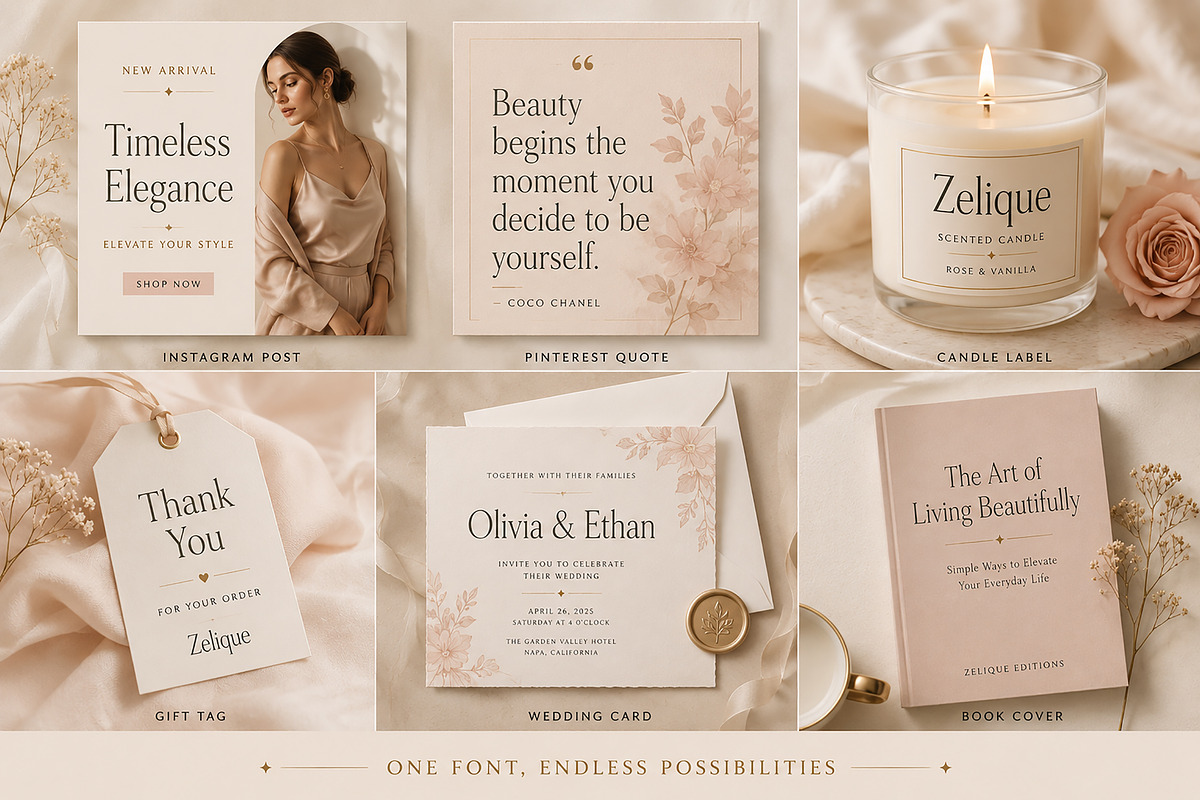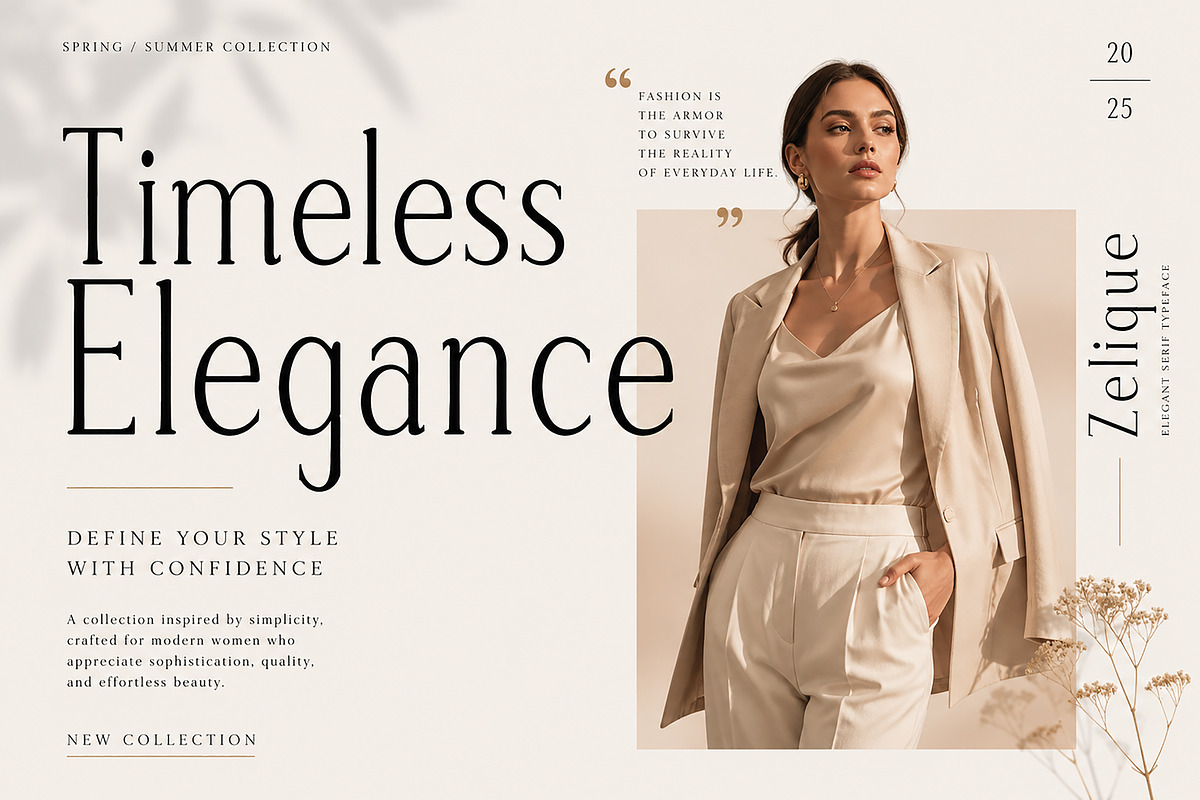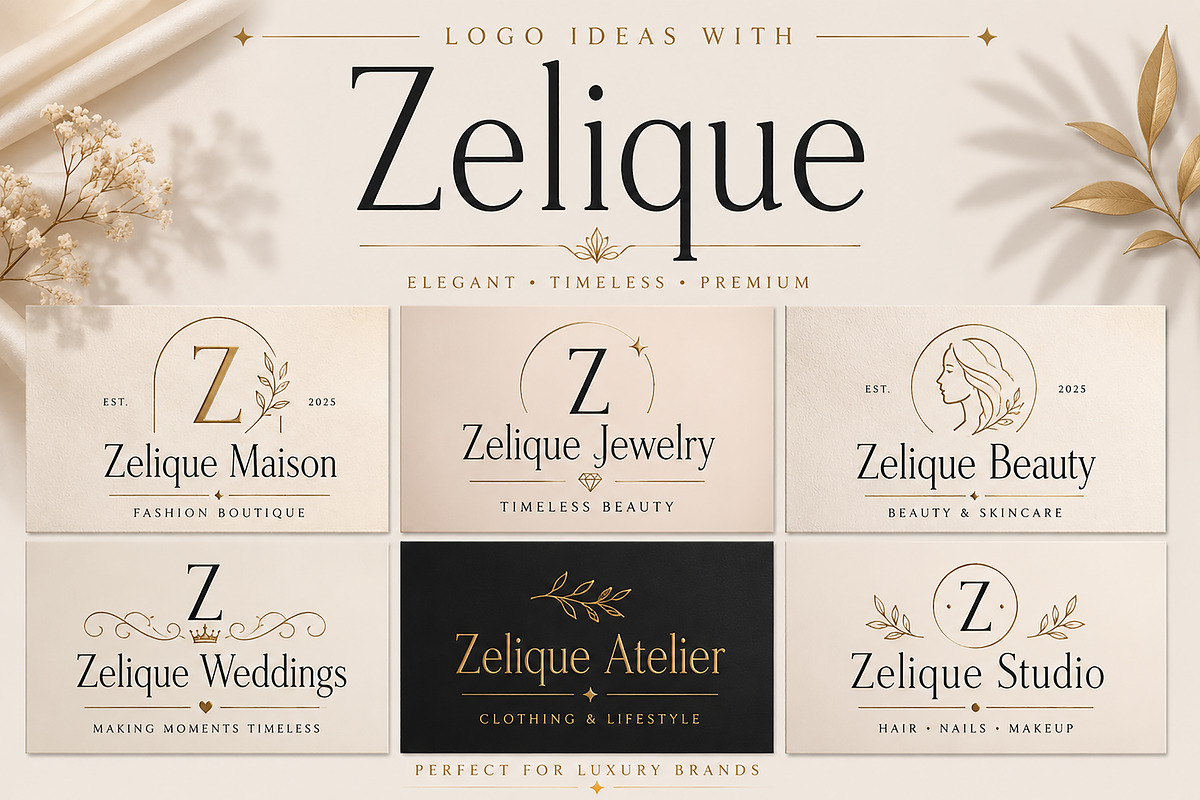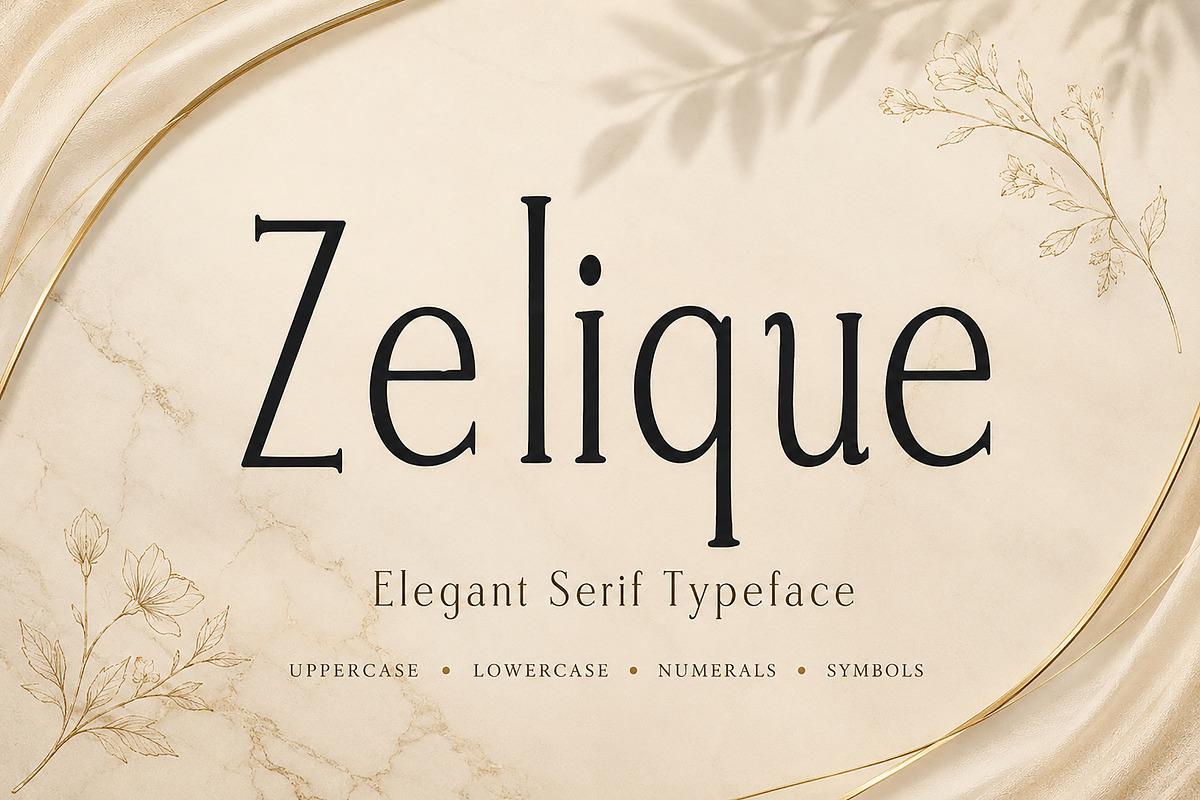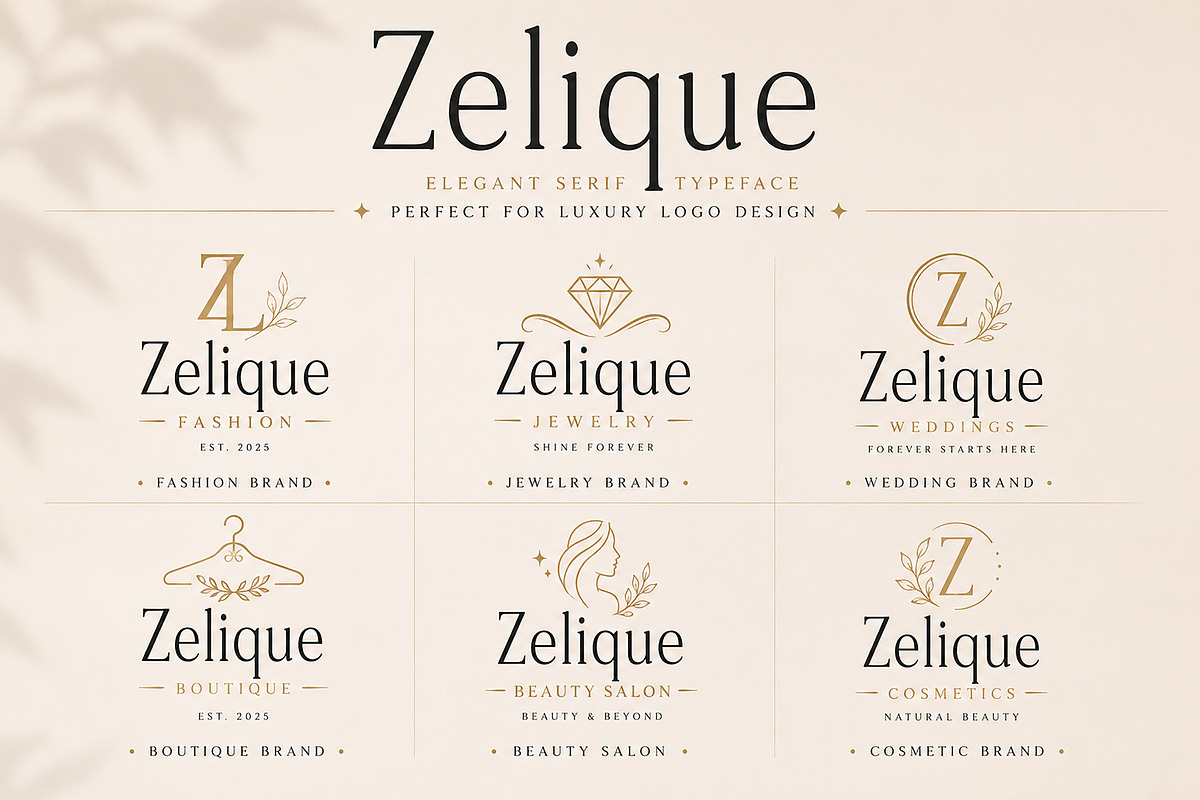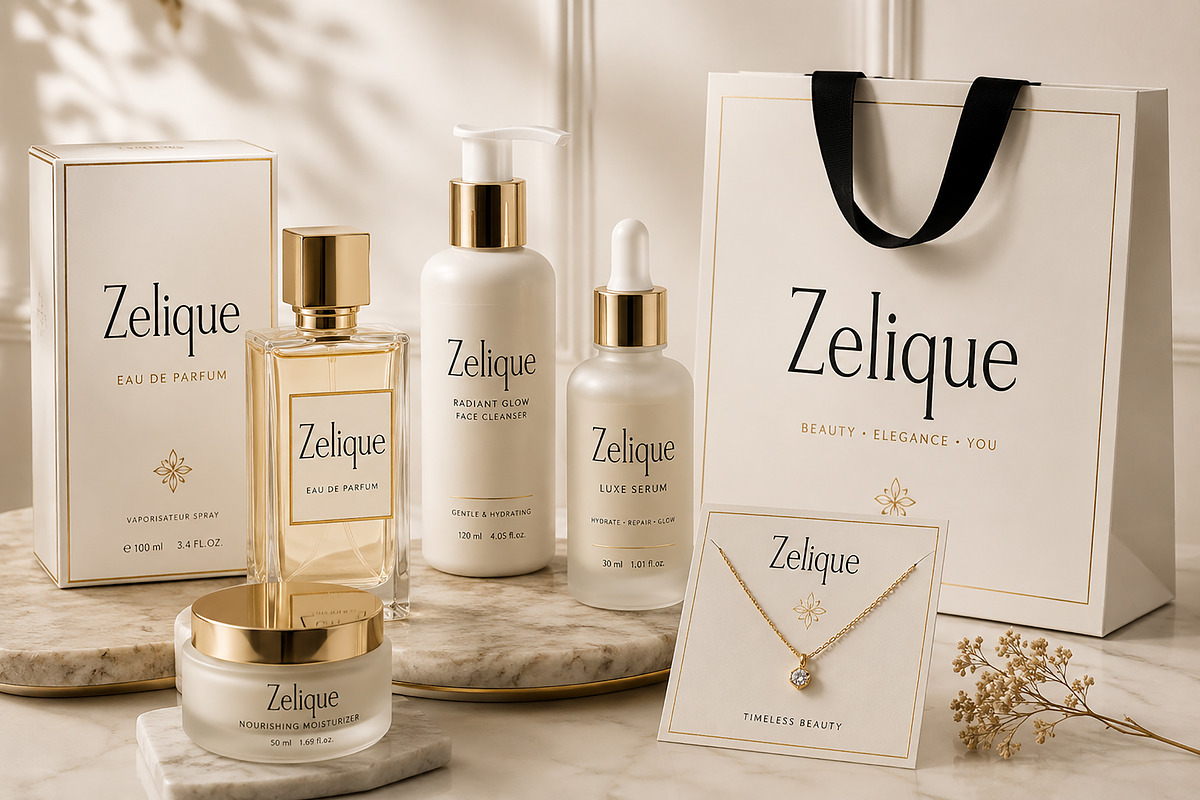
Zelique
Zelique – Elegant Serif Typeface
Zelique is a refined and sophisticated serif font crafted for luxury branding, fashion editorials, elegant logos, and timeless design projects. With its slim letterforms, graceful curves, and high-contrast strokes, Zelique brings a premium and stylish touch to every creation.
Perfect for designers who want to create stunning branding identities, wedding stationery, beauty packaging, boutique logos, magazine layouts, social media quotes, book covers, and upscale product packaging.
Its modern elegance and classic serif structure make it highly versatile—whether you're designing for fashion, beauty, lifestyle, or luxury businesses.
Zelique is designed to help your brand feel elegant, premium, and unforgettable.